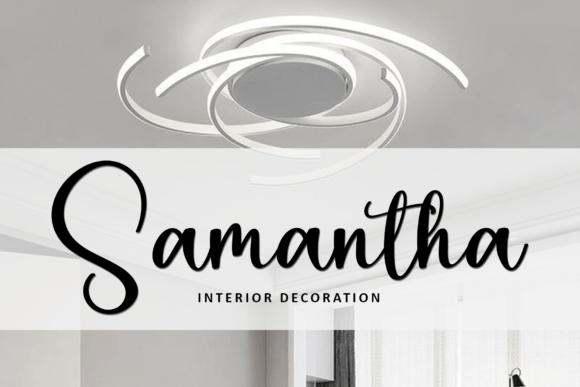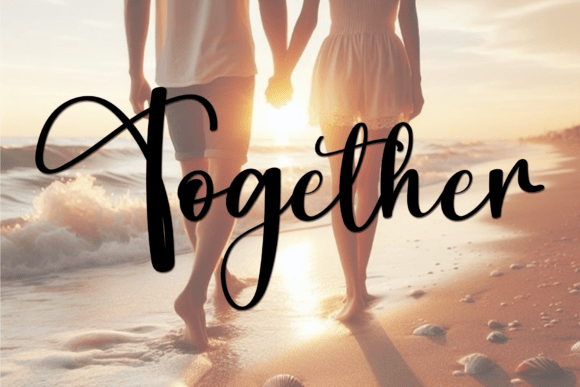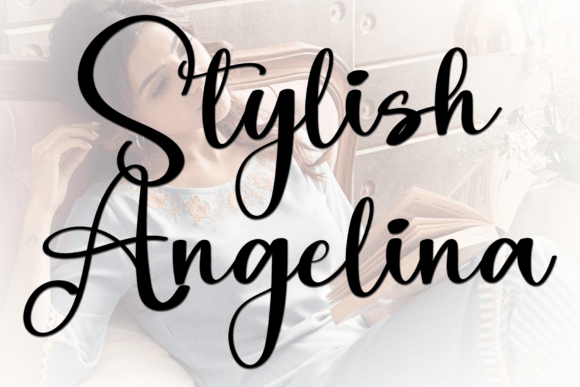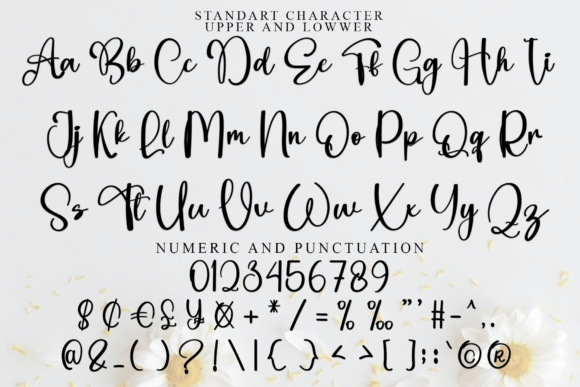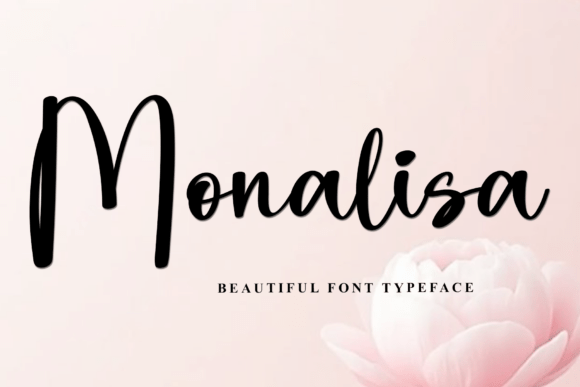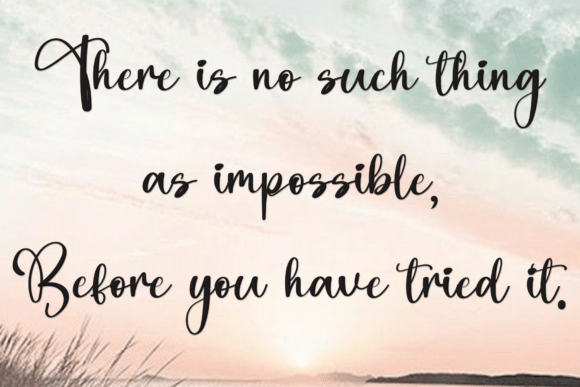
Introducing Hatton Wonderland Font: Elevate Your Designs with a Touch of Elegance
In the world of typography, a good font can make all the difference in transforming a design from ordinary to extraordinary. For designers and crafters looking for a unique and stylish touch, Hatton Wonderland Font is an excellent choice. This beautiful handwritten script font combines casual charm with a modern twist, making it perfect for a wide range of creative projects.
The Characteristics of Hatton Wonderland Font
Hatton Wonderland Font boasts fluid strokes and natural curves that mimic real handwriting, giving it a personal and authentic feel. The font’s smooth flow and subtle elegance make it ideal for creating heartfelt and visually appealing designs. Whether you’re working on branding, wedding invitations, quotes, or lifestyle blog graphics, this font is sure to bring a touch of sophistication and style to your project.
One of the best things about Hatton Wonderland Font is its versatility. Its unique blend of casual charm and modern elegance makes it suitable for a wide range of design projects, including:
• Branding: Use Hatton Wonderland Font to create a distinctive and memorable brand identity that sets you apart from the competition.
• Wedding Invitations: Add a touch of romance and elegance to your wedding invitations and stationery with this beautiful script font.
• Quotes and Posters: Create inspiring and visually appealing quotes and posters that showcase your message in a stylish and sophisticated way.
• Lifestyle Blog Graphics: Elevate your blog graphics with a personal and stylish touch that reflects your brand’s personality and aesthetic.
Why Choose Hatton Wonderland Font?
With so many fonts available, why choose Hatton Wonderland Font? Here are just a few reasons why designers and crafters love this beautiful script font:
• Unique and Authentic: Hatton Wonderland Font’s handwritten style gives it a unique and authentic feel that’s hard to find in digital fonts.
• Elegant and Sophisticated: The font’s smooth flow and subtle elegance make it perfect for creating sophisticated and stylish designs.
• Versatile: Hatton Wonderland Font is suitable for a wide range of design projects, from branding and wedding invitations to quotes and lifestyle blog graphics.
• Easy to Read: Despite its elegant and cursive style, Hatton Wonderland Font is easy to read, making it perfect for body text and longer designs.
Tips for Using Hatton Wonderland Font
To get the most out of Hatton Wonderland Font, here are a few tips to keep in mind:
• Pair it with a Sans Serif Font: For a stylish and modern look, pair Hatton Wonderland Font with a sans serif font for headings and body text.
• Experiment with Colors: Hatton Wonderland Font looks great in a variety of colors, so don’t be afraid to experiment and find the perfect hue for your design.
• Use it for Headings and Titles: While Hatton Wonderland Font is elegant and sophisticated, it’s also perfect for creating bold and eye-catching headings and titles.
In conclusion, Hatton Wonderland Font is a beautiful and versatile script font that’s perfect for designers and crafters looking to add a touch of elegance and sophistication to their designs. With its fluid strokes, natural curves, and smooth flow, this font is ideal for a wide range of creative projects, from branding and wedding invitations to quotes and lifestyle blog graphics. So why not give Hatton Wonderland Font a try and see the difference it can make in your designs?